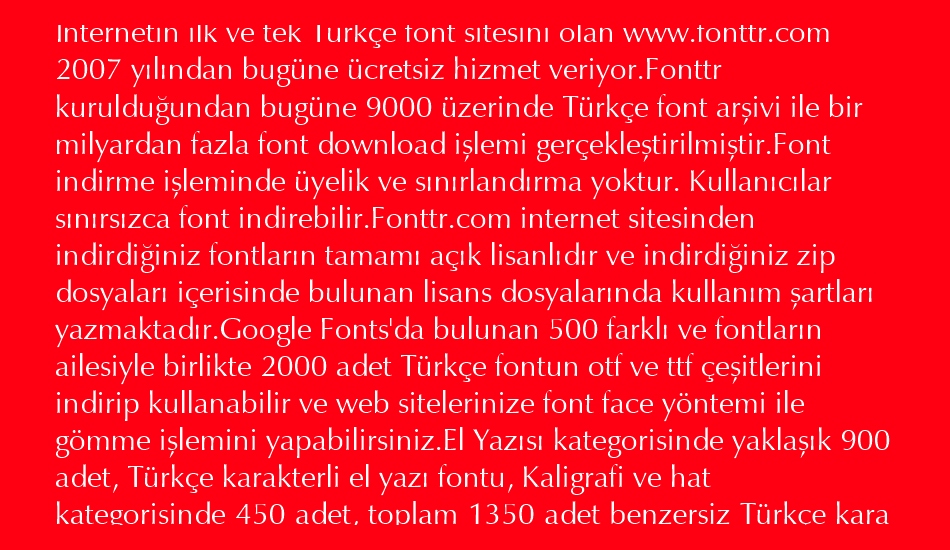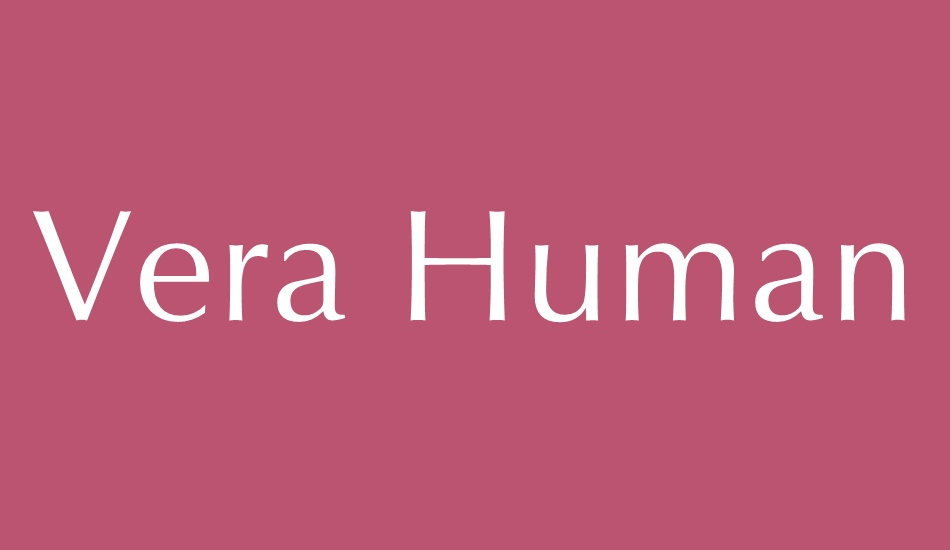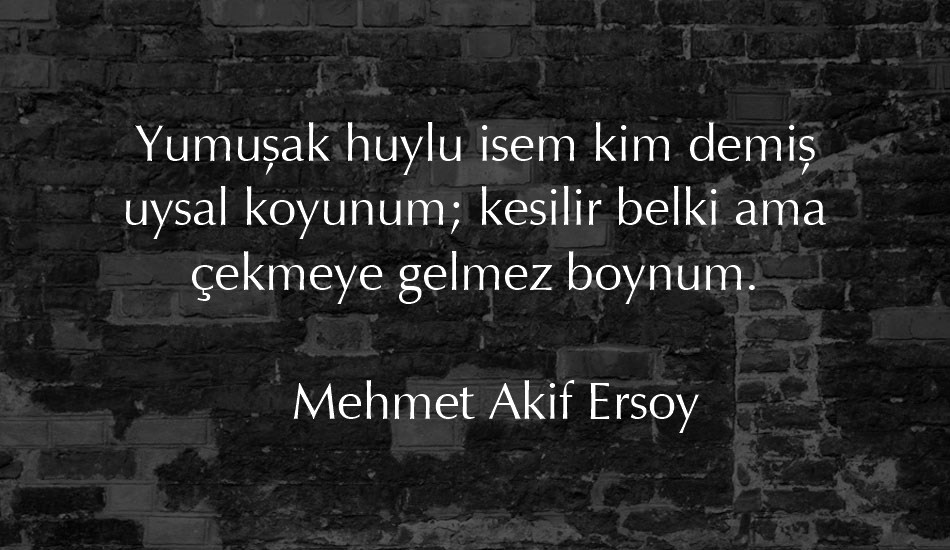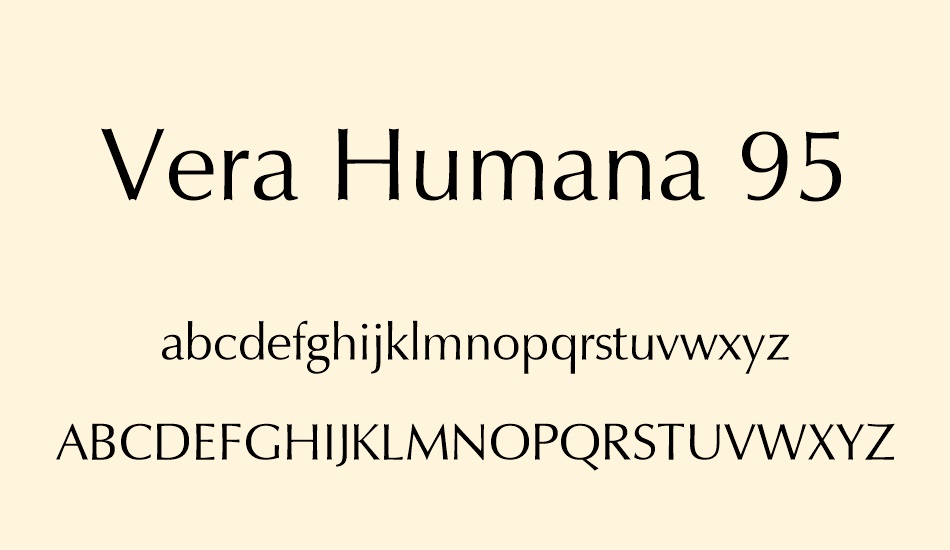
Vera Humana 95
This True Type Font was designed for Windows 95. Though we have
created it especially for using the cyrillic characters
we have added the composite latin characters for East European
languages, too, so that this font supports the codepages Cyr
(1251), CE (1250) and Baltic (1257). You can use it for writing
Russian, Ukrainian and Serbian as well as Polish, Czech, Romanian,
Hungarian, Slovenian, Latvian, Lithuanian etc.
Maybe, on low resolution printers (<600 dpi) the font
won't look very fine, because it has no straight lines. On a
Epson Stylus 800, for instance, the result may be not satisfying,
but on my HP DeskJet 400 it looks rather well (perhaps because of
HP's RET System). The best quality you will achieve on typographic
machines with high resolution (>1200 dpi).